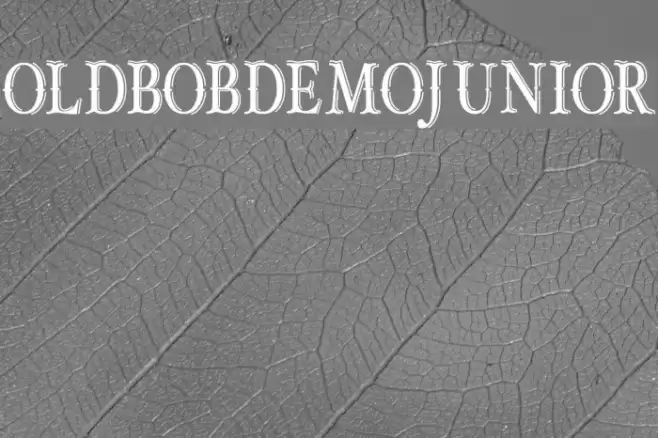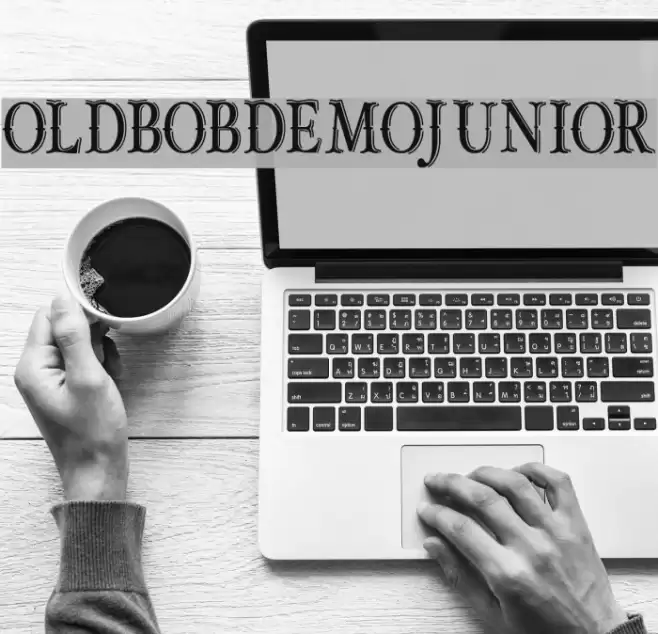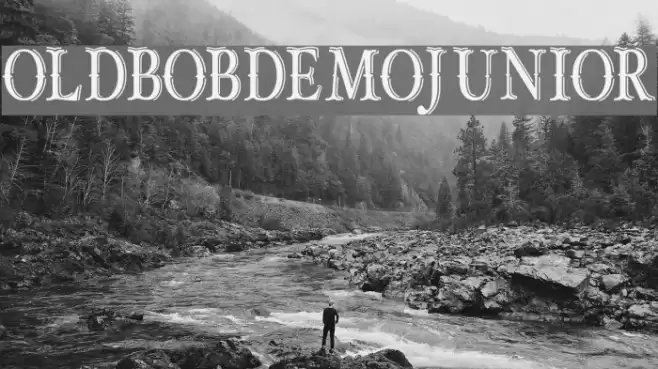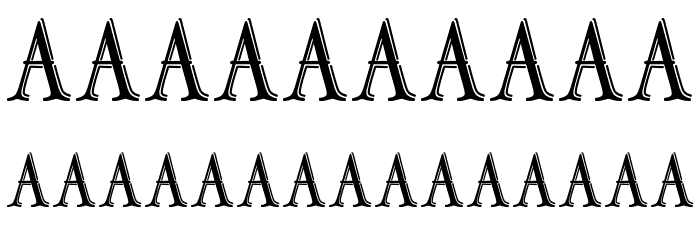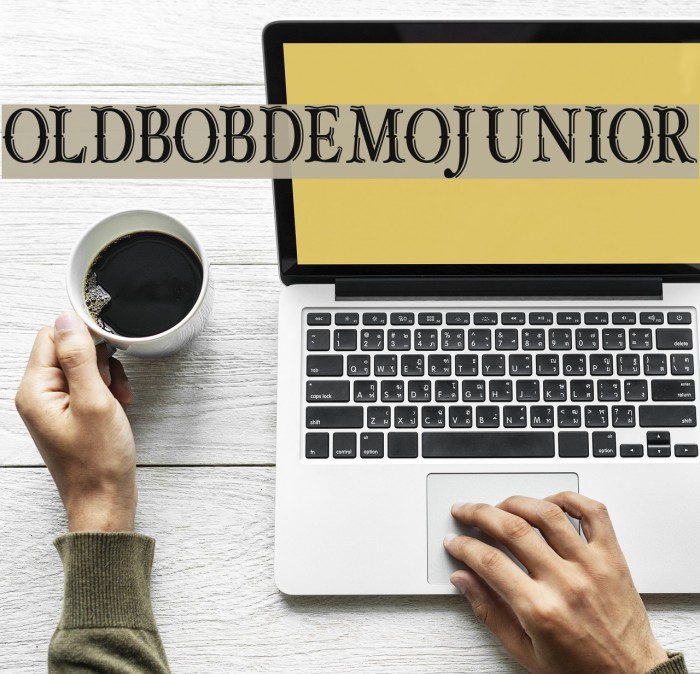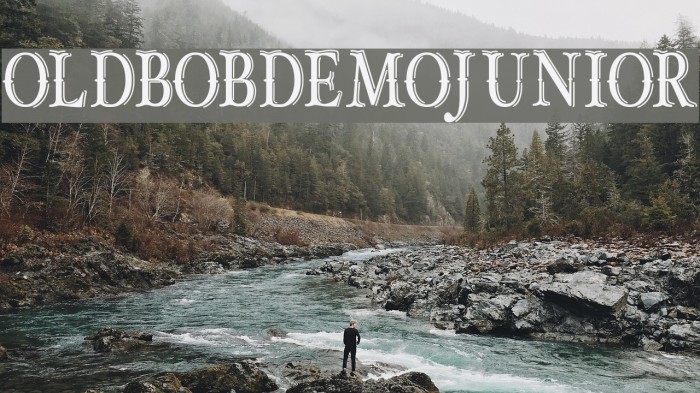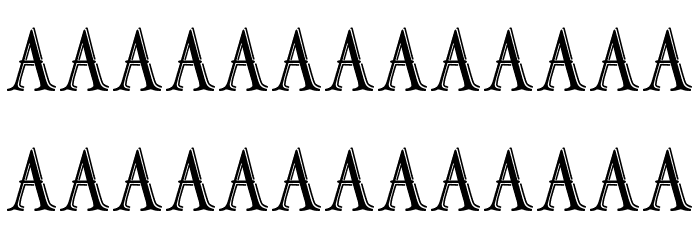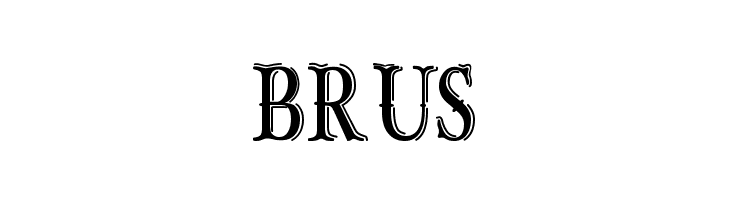
OLD BOB DEMO JUNIOR Font
OLD BOB DEMO JUNIOR Description
This font features a bold and decorative style with distinct serifs and a vintage flair. Each letter is crafted with a high level of detail, showcasing a shadow effect that adds depth and dimension. The uppercase letters are particularly striking, with their pronounced serifs and intricate design elements. The overall appearance is reminiscent of classic signage or old-fashioned posters, making it ideal for projects that require a touch of nostalgia or historical charm. The font's boldness and decorative nature make it stand out, ensuring that any text set in this style will capture attention.
A bold, decorative serif font with a vintage, shadowed style from Uncategorized fonts.
- Proposed Projects: Ideal for vintage-themed posters, signage, branding, and editorial design.
- Overall Style: Vintage